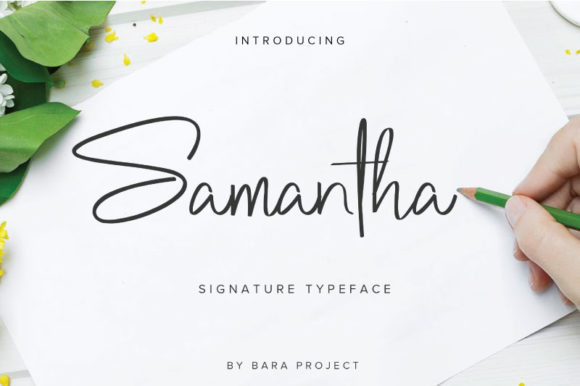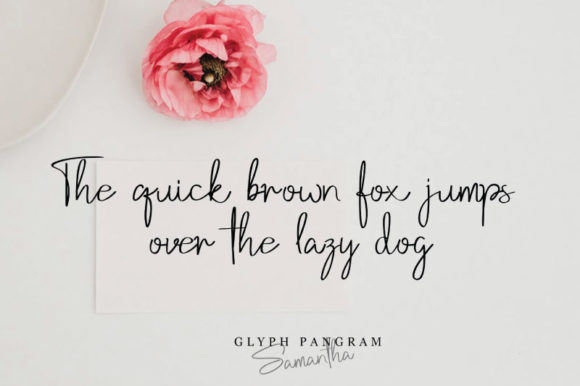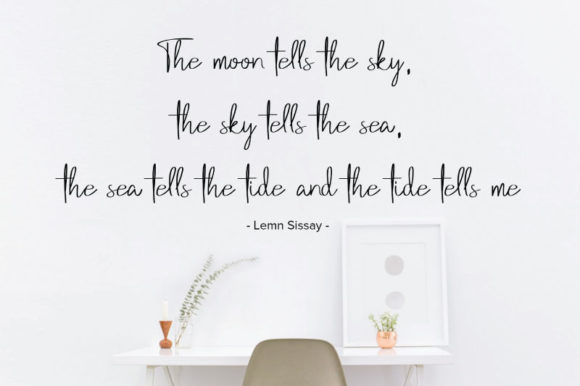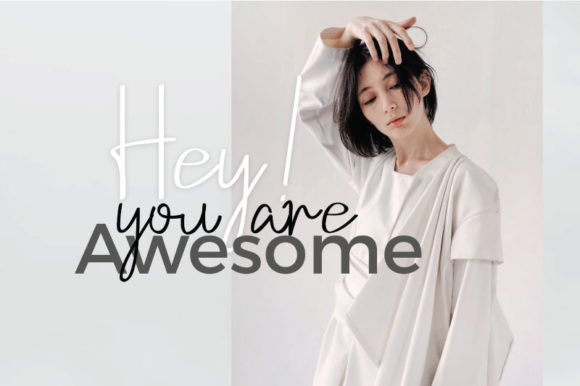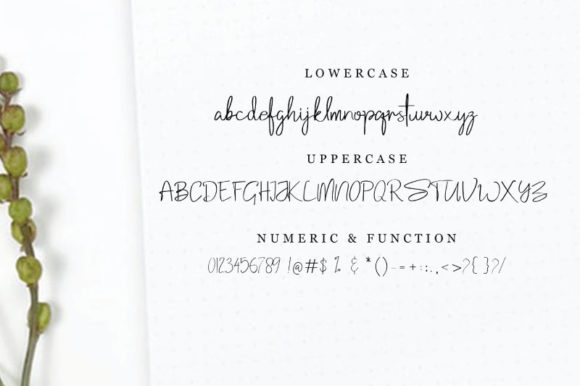
Samantha Font
About Samantha Font
Samantha’s gorgeous signature style will easily take any creative project to the next level. Fall in love with its unique style!